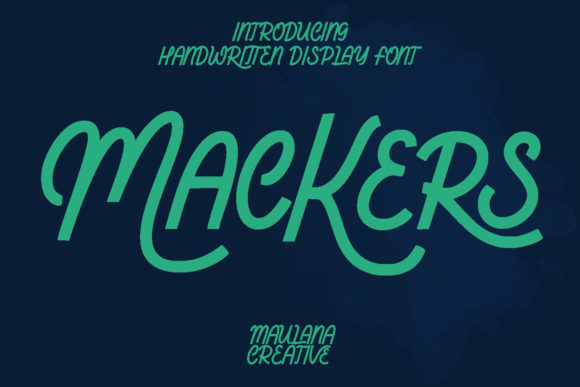
Are you on the hunt for an alluring script font that radiates sophistication and grace? Look no further than the enchanting Mackers Font, a masterpiece crafted by the skilled hands of Maulana Creative. This captivating font family effortlessly blends timeless elegance with a contemporary twist, promising to elevate your designs to new heights of visual appeal.
Indulge in the ethereal beauty of Mackers Font, a captivating script that exudes a touch of delicate charm. Each meticulously crafted letter dances across the page with an effortless grace, evoking a sense of timeless elegance. Whether you're gracing invitations with a touch of romance or crafting social media posts that demand attention, Mackers Font seamlessly adapts to any design vision, transforming your creations into works of art.
Immerse yourself in the versatility of Mackers Font, a true chameleon among fonts. From whimsical branding to captivating web design, this remarkable font family effortlessly adapts to any style or concept, adding a touch of magic to every project. Experience the joy of limitless creativity as you explore the endless possibilities that Mackers Font has to offer.
Crafted with passion and precision, Mackers Font is not just another font; it's an investment in your creative endeavors. Its versatility empowers you to explore a boundless realm of design possibilities, ensuring that your projects stand out from the crowd and leave a lasting impression.
Don't settle for ordinary when you can embrace the extraordinary. Elevate your designs to new heights of sophistication with Mackers Font, the font that captures hearts and ignites imaginations. Join the ranks of discerning designers who recognize the transformative power of a truly exceptional font.
Embrace the allure of Mackers Font today and unlock a world of creative possibilities. Experience the joy of crafting designs that captivate, inspire, and leave an unforgettable mark.